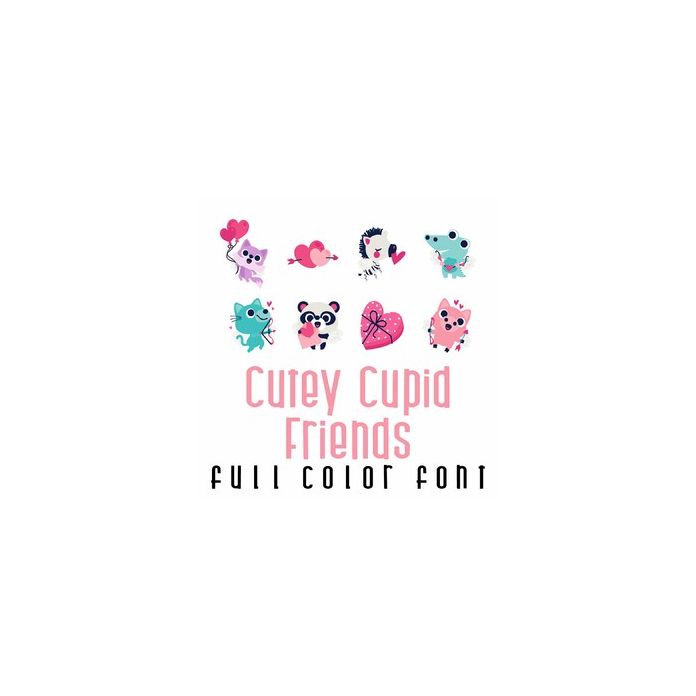
This adorable full-color doodlebat font features 26 cutey cupid animals ready for love. Perfect for cards, crafts, gifts, decor, scrapbook pages, planner stickers, and more!